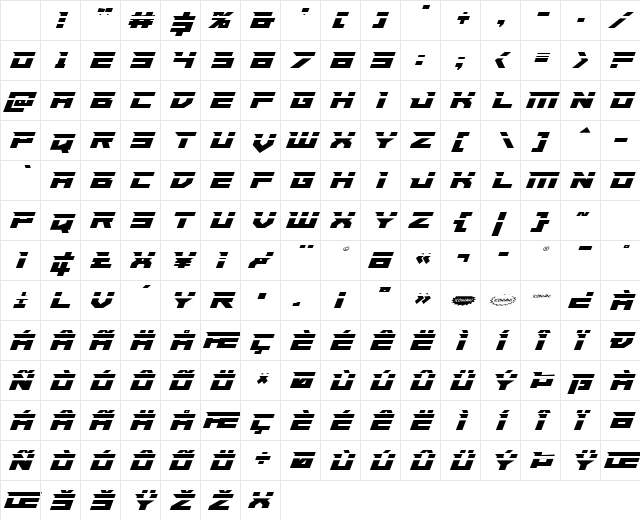
Complete Paladins Laser Regular glyph index. Displaying only characters natively supported by Paladins Laser Regular font.
Paladins Laser is a composed and adaptable typeface that performs quietly and consistently across a wide range of design contexts.